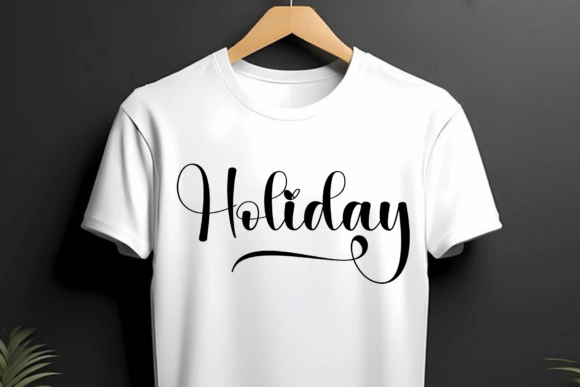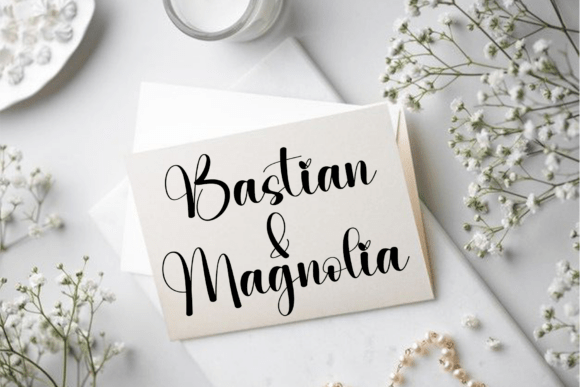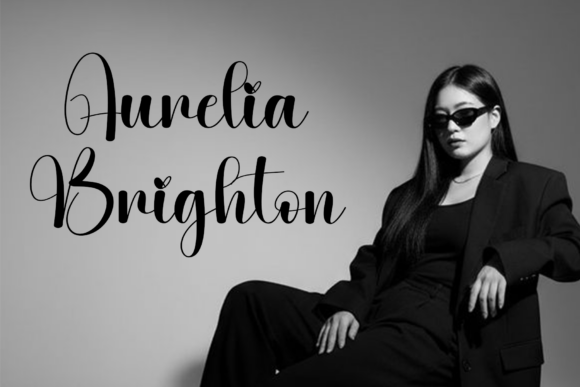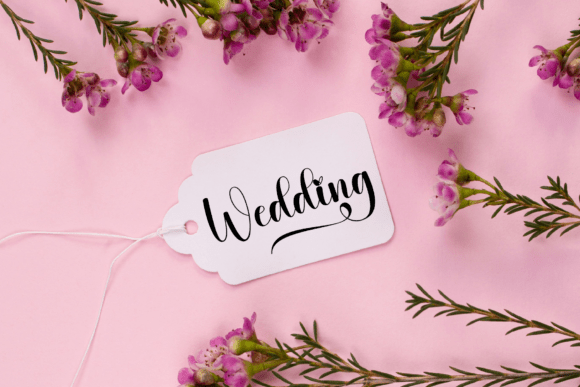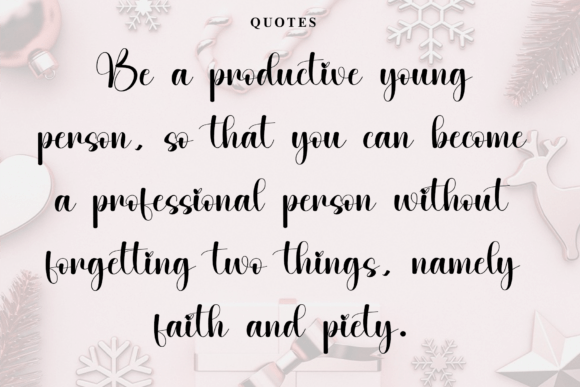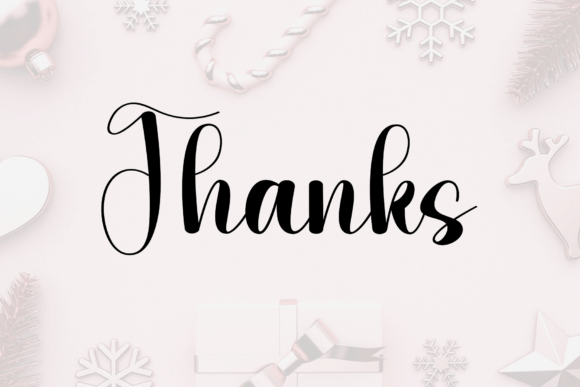
The Magic of Handwritten Fonts: Unlocking the Beauty of Beauty Christmas Font
As I sat at my desk, surrounded by scattered papers and half-finished projects, I couldn’t help but feel a surge of creativity as I stared at a blank page. The blank canvas was calling my name, begging to be filled with something beautiful. It was then that I reached for the perfect tool to bring my vision to life: a stunning handwritten font.
Enter the Beauty Christmas Font, a modern script font that combines elegance with a personal touch. Its fluid strokes and gentle curves mimic the natural flow of real handwriting, making it perfect for wedding invitations, logos, stationery, and more. For designers, this font is a valuable asset, offering a unique and sophisticated look that elevates any project while maintaining readability. Whether you’re creating minimalist artwork or luxurious prints, the Beauty Christmas Font adds a touch of elegance and human element to your designs.
Key Features of Beauty Christmas Font
- Unique Characteristics: This font features elegant, cursive, and whimsical designs, perfect for creating festive and romantic Christmas-themed designs.
Beauty Christmas Font Review
Firstly, I’d like to mention that I do appreciate the festive vibe this font gives off, especially during the holiday season. ✨ The swashes and flourishes add a touch of elegance, making it perfect for Christmas-themed designs. The font’s bold and playful feel will surely catch the eye of anyone who sees it.
- Unique and festive design, perfect for Christmas-themed projects
- Good for titles, headings, and short text passages
- Highly customizable, allowing for various font sizes and colors
However, I do have some concerns about the font’s limitations. ⚠️ Firstly, it’s not suitable for large blocks of text due to its complex design. This can make it difficult to read, especially for those who are not familiar with the font. Additionally, the font’s boldness can sometimes make it look cluttered and overwhelming. Lastly, the font’s compatibility with different devices and operating systems might be an issue, as it’s not as widely supported as other fonts.
Overall, I’d say the Beauty Christmas Font is a great choice for designers who want to add a touch of festive flair to their projects. However, it’s essential to use it wisely and in moderation to avoid any potential issues. With careful planning and design, this font can be a true showstopper.
The Beauty Christmas Font is perfect for:
- Holiday greeting cards and invitations
- Christmas party decorations and graphics
- Winter-themed social media posts and ads
- Festive email templates and newsletters
Q: What is the character set and language support for the Beauty Christmas Font?
The Beauty Christmas Font includes a standard character set with support for Latin languages, including English, Spanish, French, German, Italian, and many others. It also includes a range of holiday-themed characters and symbols, making it perfect for Christmas and winter-themed designs.